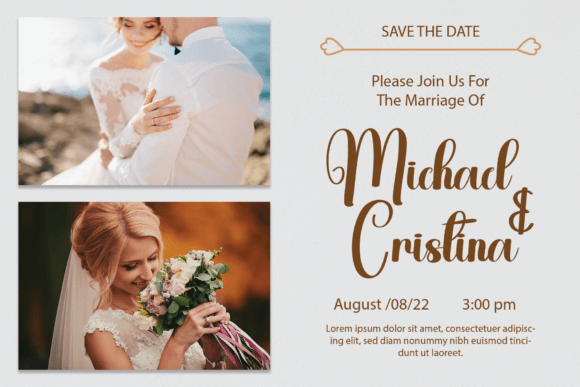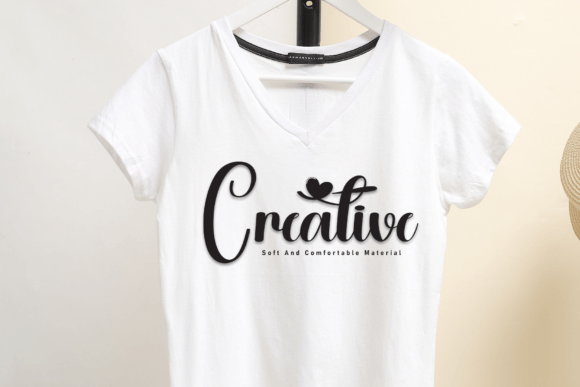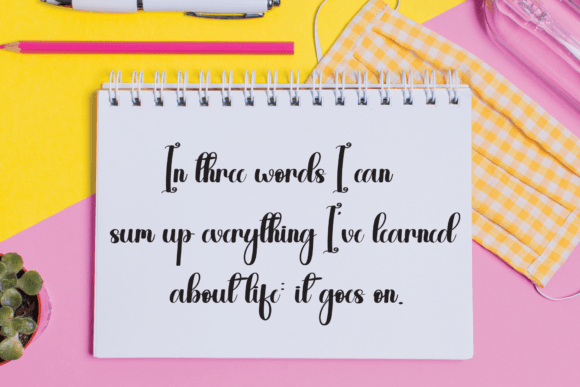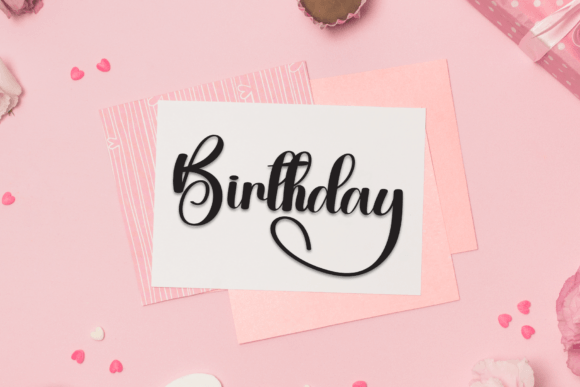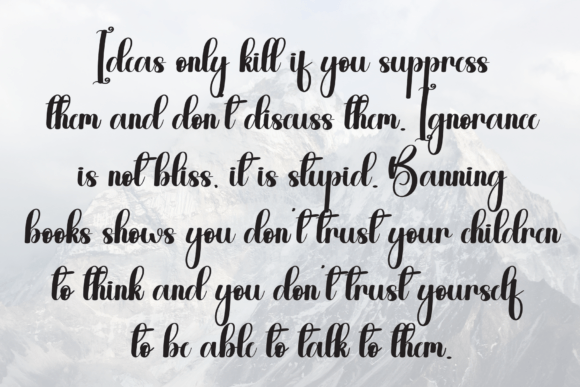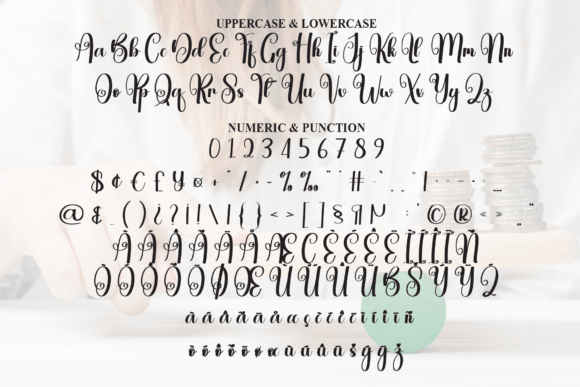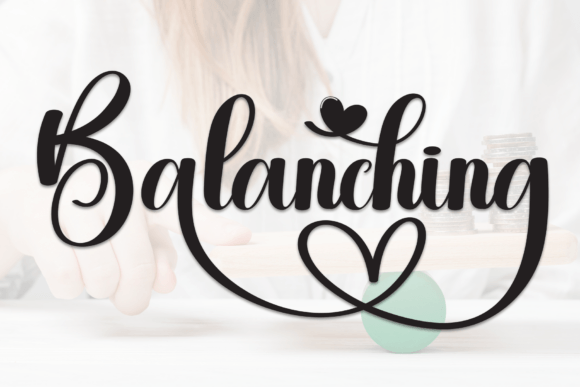
Balanching Font: The Charming Handwritten Display Font
Are you looking for a font that can add a touch of elegance and playfulness to your designs? Look no further than the Balanching Font, a beautifully crafted handwritten display font that exudes a sweet charisma and an enjoyable aura. In this article, we’ll introduce you to this charming font, explore its features, and discuss how it can elevate your designs, particularly for wedding invitations, greeting cards, and more.
What is Balanching Font?
The Balanching Font is a stunning handwritten display font that boasts a wonderfully endearing and amicable calligraphy style. Its adorable and merry characteristics make it perfect for designs that require a touch of whimsy and sophistication. This font is designed to bring a sense of joy and playfulness to your projects, making it an excellent choice for designers and crafters looking to create unique and eye-catching designs.
Key Features of Balanching Font
- Handwritten Calligraphy Style: The Balanching Font features a beautiful handwritten calligraphy style that adds a personal touch to your designs.
- Playful yet Elegant: This font strikes the perfect balance between playfulness and elegance, making it suitable for a wide range of design projects.
- Adorable and Merry Characteristics: The font’s adorable and merry characteristics make it perfect for designs that require a touch of whimsy and fun.
- Perfect for Wedding Invitations and Greeting Cards: The Balanching Font is particularly well-suited for wedding invitations, greeting cards, and other special occasion designs.
How to Use Balanching Font in Your Designs
The Balanching Font is incredibly versatile and can be used in a variety of design projects, including:
- Wedding Invitations: Add a touch of elegance and romance to your wedding invitations with the Balanching Font.
- Greeting Cards: Use the font to create beautiful and personalized greeting cards for special occasions.
- Social Media Graphics: The Balanching Font is perfect for creating eye-catching social media graphics, such as Facebook posts, Instagram stories, and more.
- Branding and Packaging: Use the font to add a touch of personality to your brand’s packaging and marketing materials.
Tips for Getting the Most Out of Balanching Font
To get the most out of the Balanching Font, here are a few tips:
- Experiment with Font Sizes: Play around with different font sizes to create visual interest and hierarchy in your designs.
- Pair with Other Fonts: Combine the Balanching Font with other fonts to create a unique and eye-catching typography combination.
- Use Color Effectively: Use color to enhance the font’s playful and elegant characteristics, and to create a cohesive design.
The Balanching Font is a charming handwritten display font that can add a touch of elegance and playfulness to your designs. With its adorable and merry characteristics, this font is perfect for wedding invitations, greeting cards, and other special occasion designs. By following the tips outlined in this article, you can get the most out of the Balanching Font and create stunning designs that showcase your creativity and style.